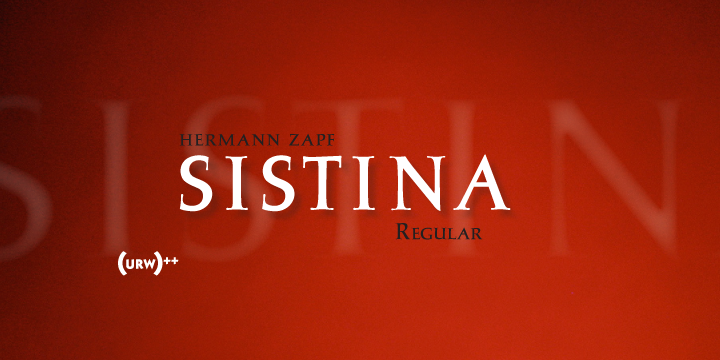
Sistina Font is perfect for religious institutions, classical art galleries, Renaissance-themed projects, luxury hotels, Vatican-inspired designs, historical museums, fine art publications, cultural heritage materials, and any project requiring typography with divine elegance and sacred artistic sophistication.
What makes Sistina Font exciting is its celestial grandeur that captures the divine inspiration and artistic magnificence of the Sistine Chapel with letterforms that echo the sublime beauty of Renaissance masterpieces and sacred architecture. This magnificent typeface embodies the spiritual elevation and artistic perfection of Michelangelo's era with classical proportions and heavenly details that reflect the intersection of divine inspiration and human creativity. The font's sacred character and artistic nobility make it perfect for projects celebrating religious art, cultural heritage, and the timeless beauty of Renaissance aesthetics.
The Sistina Font family includes regular and ornamental weights, featuring complete uppercase and lowercase alphabets, numerals, punctuation marks, and decorative flourishes inspired by Vatican manuscripts. The font maintains consistent divine elegance throughout all weights while ensuring excellent readability for both majestic headlines and sacred text applications in religious and cultural contexts.
Whether you're designing for religious organizations, creating cultural exhibition materials, or developing luxury branding with Renaissance artistic aesthetics, Sistina Font Free Download delivers unmatched spiritual sophistication and artistic grandeur to your projects. This divine typeface transforms ordinary text into sacred expressions of beauty and faith that honor the finest traditions of religious art and Renaissance craftsmanship. The font's celestial character makes it ideal for churches, museums, and cultural institutions. Download this exceptional font today and bring the timeless magnificence of the Sistine Chapel to your design projects with authentic sacred elegance and Renaissance artistic beauty.